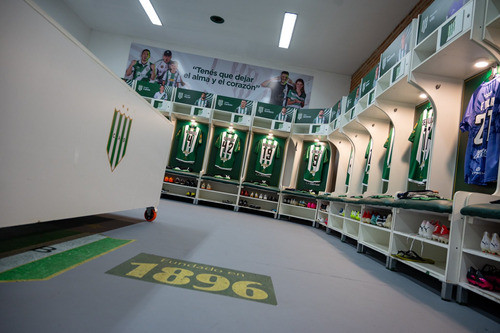
Banfield Font Typography 2024
This typography set is perfect for printing houses, plotters, and sublimation projects. Whether you're in the textile stamping business or simply looking to enhance your creative endeavors, the Banfield Font Typography 2024 is an exceptional choice. The intricacies of the numbering and logo details bring an exclusive touch, making your shirts and materials truly unique. You can confidently create stunning visuals that reflect the spirit of Banfield.